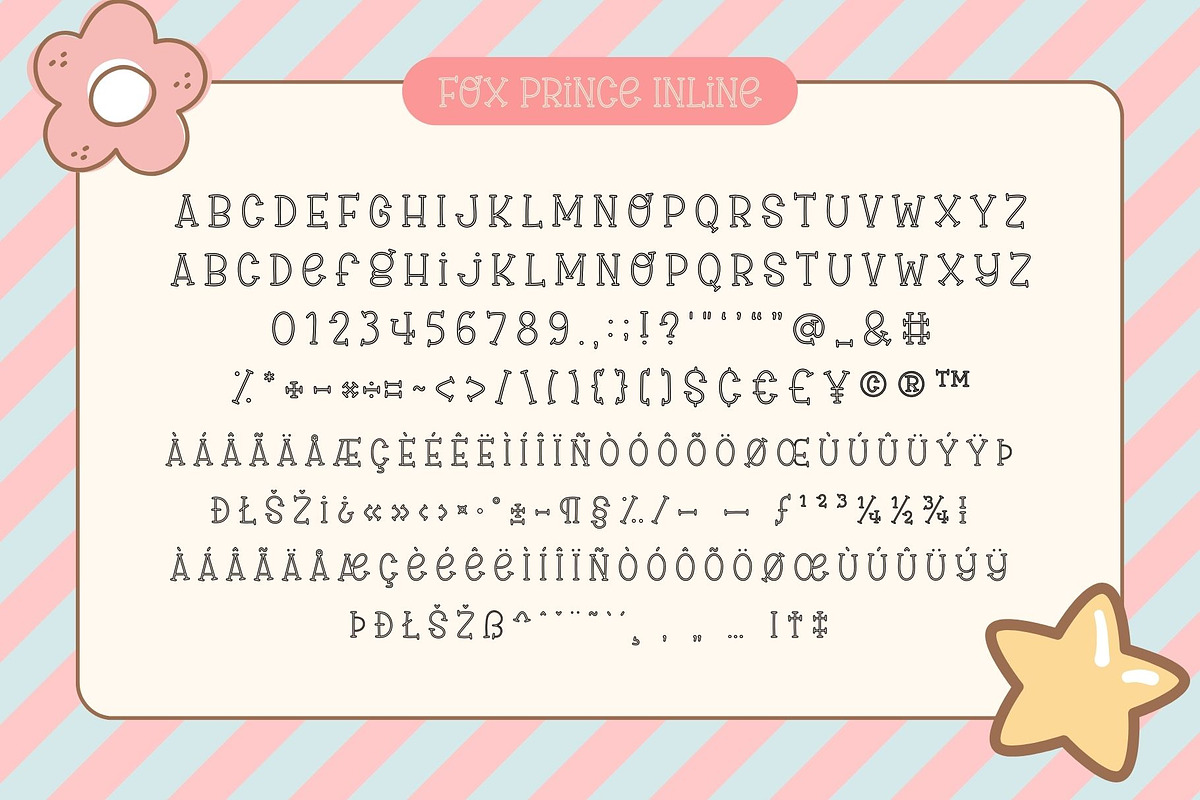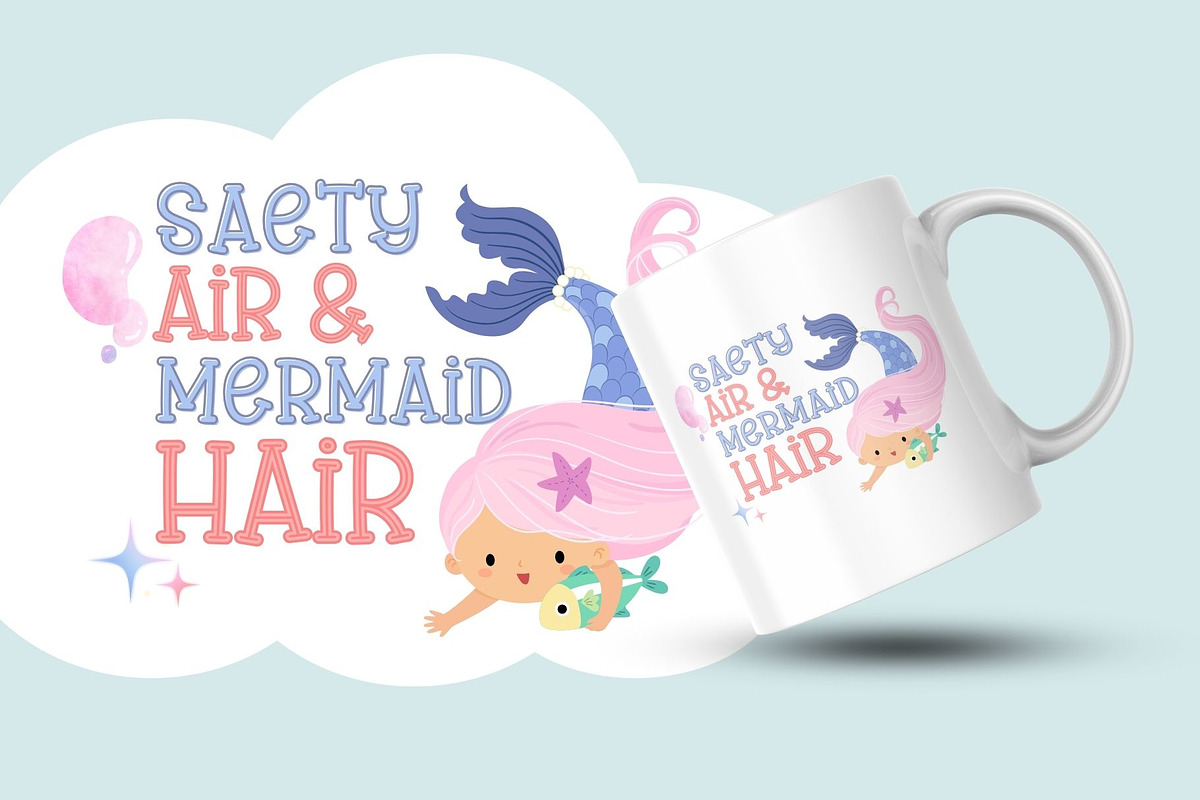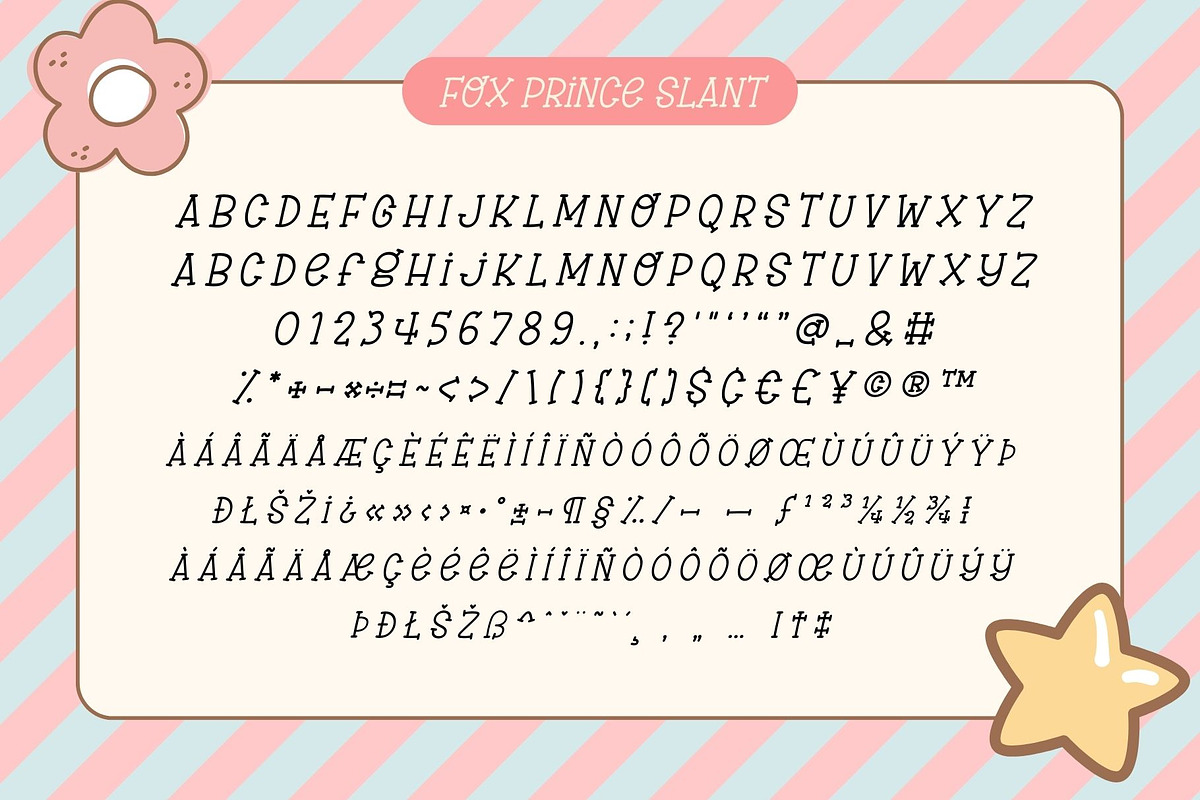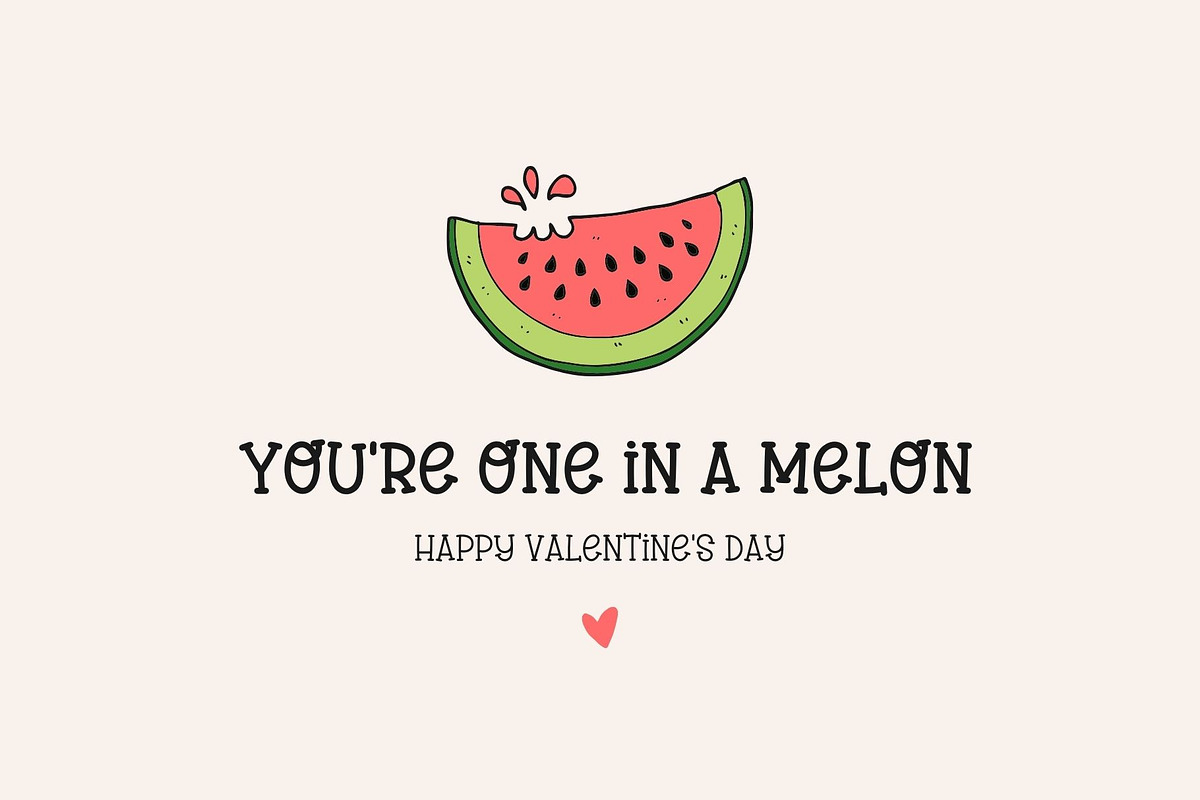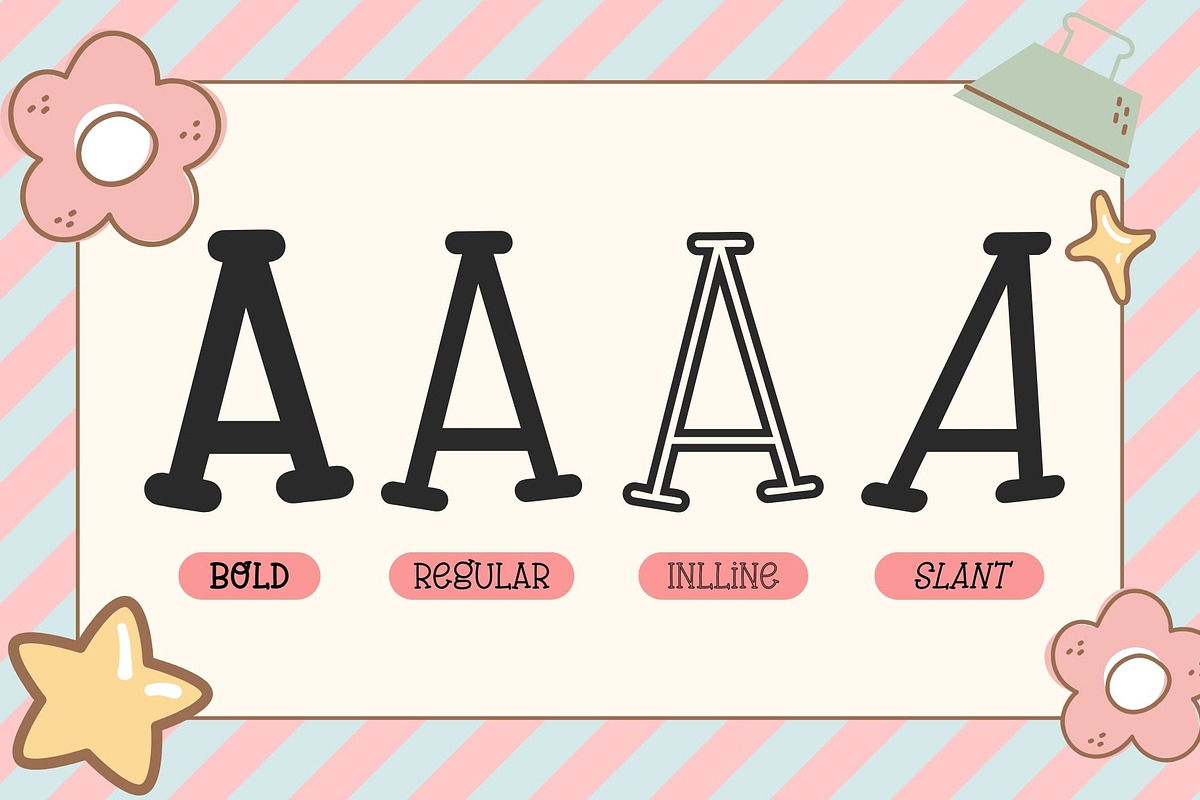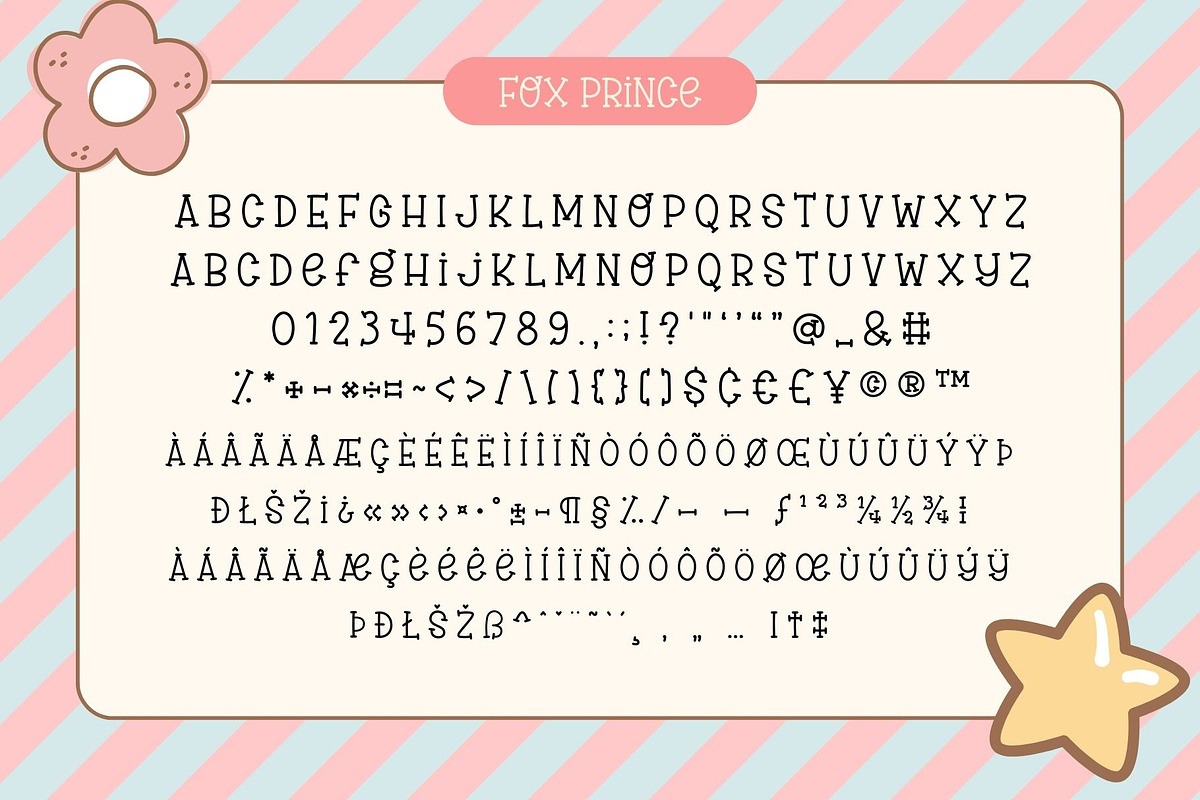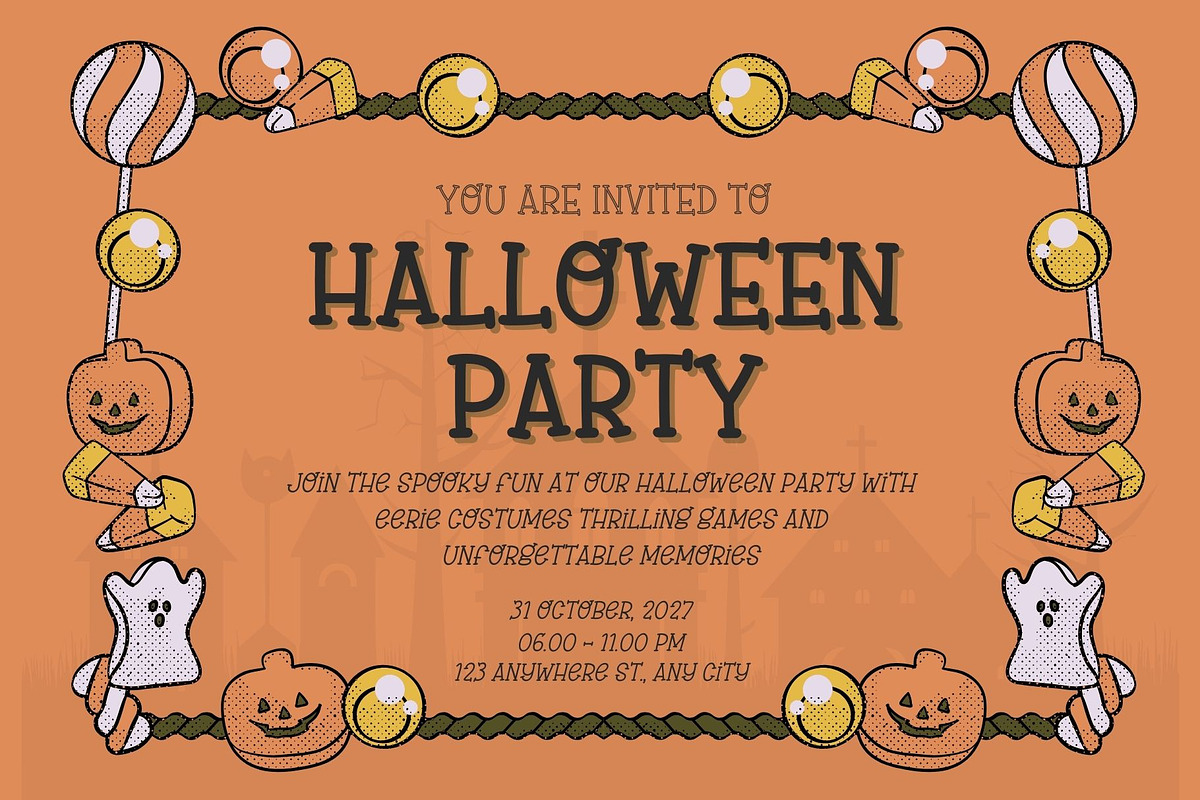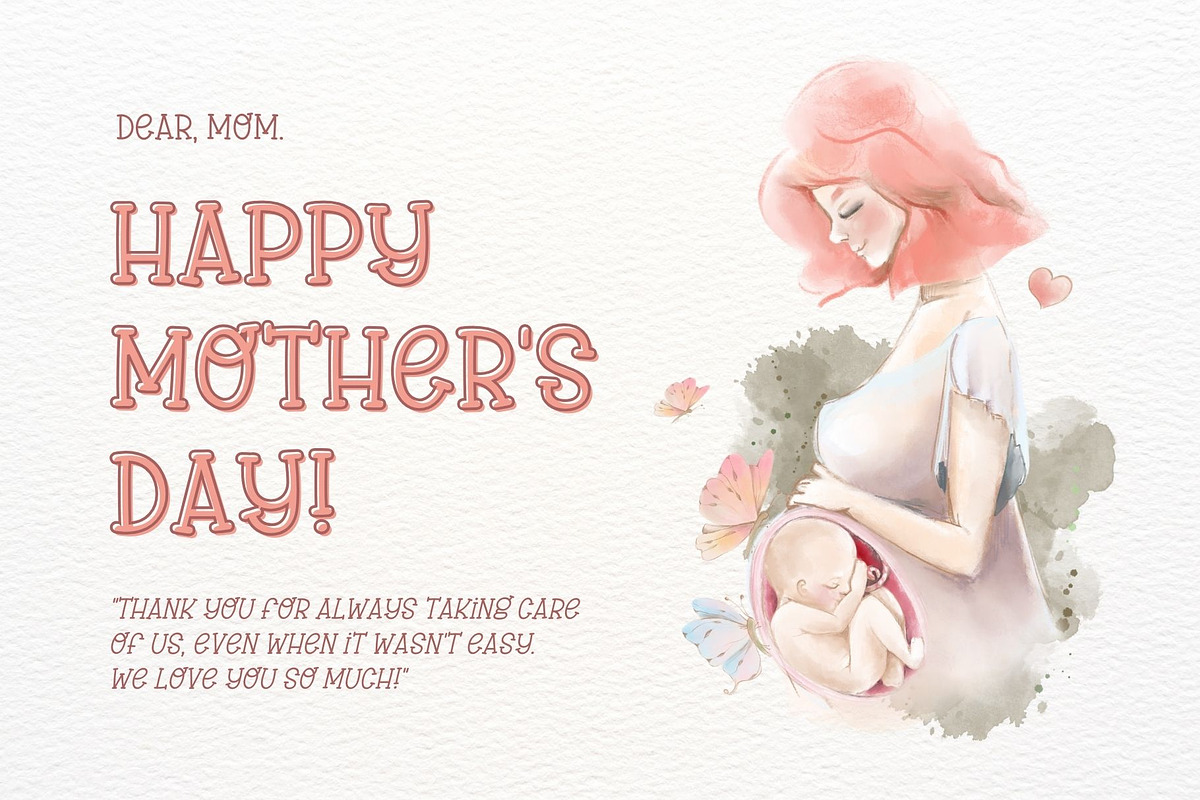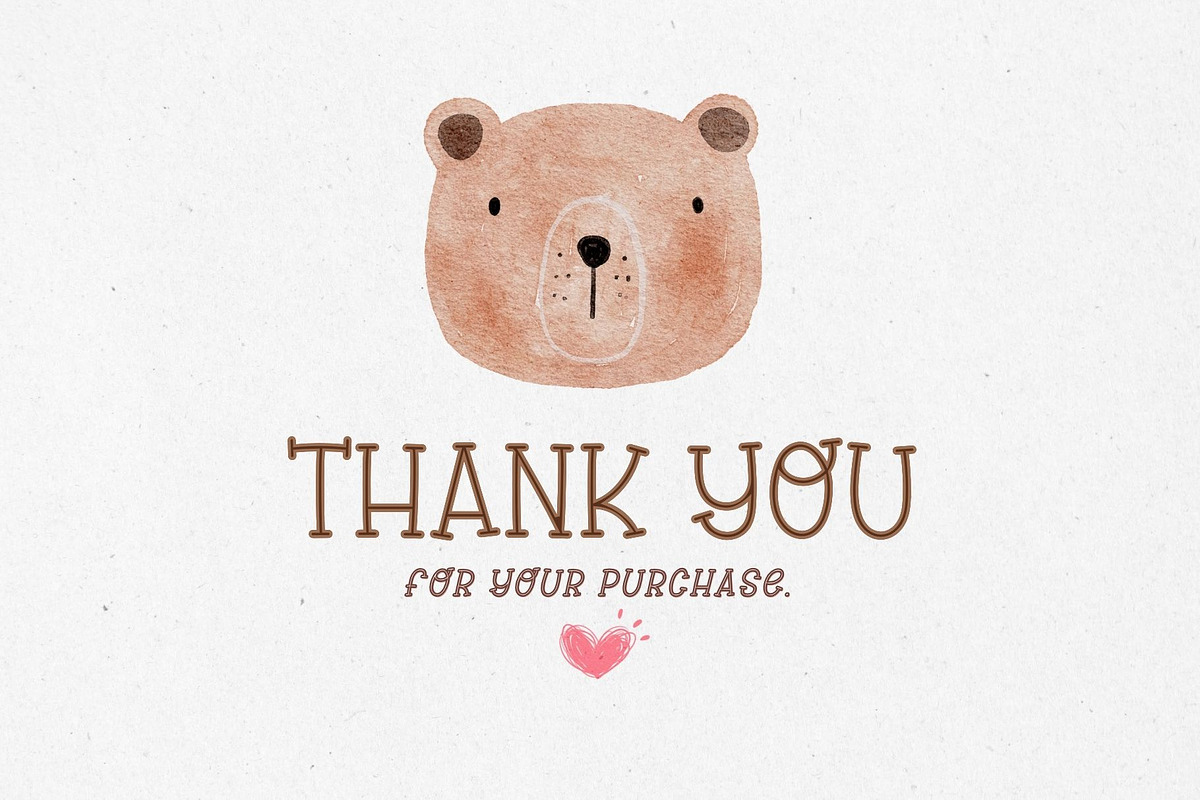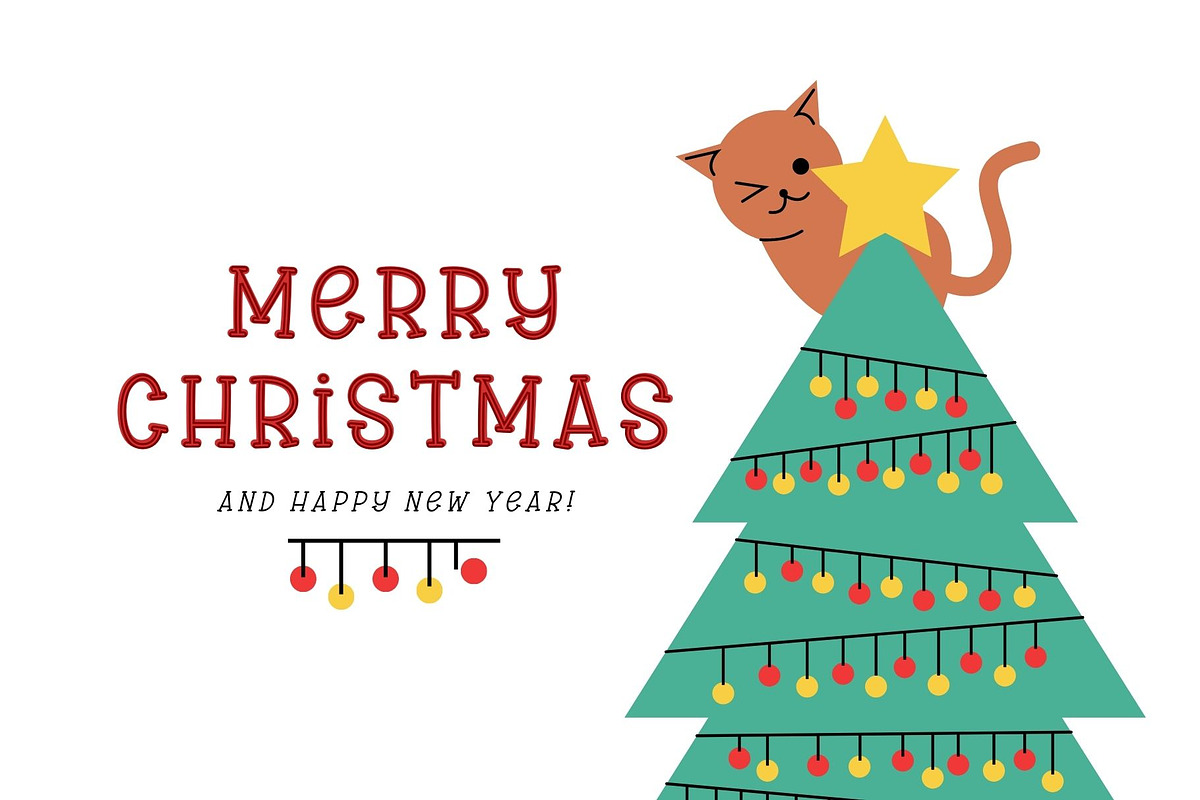
Fox Prince: 4 font styles
Fox Prince is a 4 font style a charming handwritten Slab Serif font typeface that exudes cuteness and simplicity. With its clean lines and easy-to-read design, this font is the perfect choice for a wide range of creative projects. Whether you’re creating inspirational quotes, captivating headings, engaging blogs, striking logos, or inviting invitations, Fox Prince Font adds a delightful touch to any project.